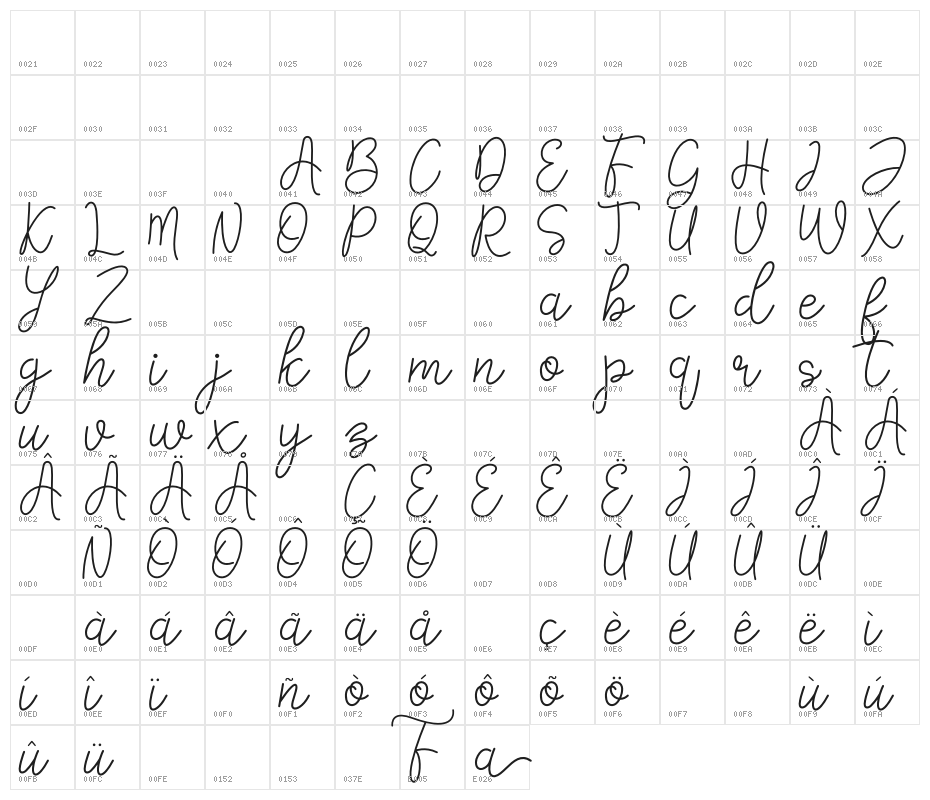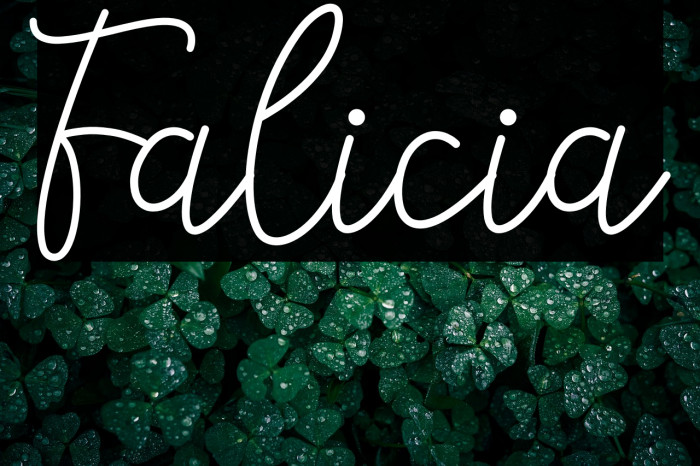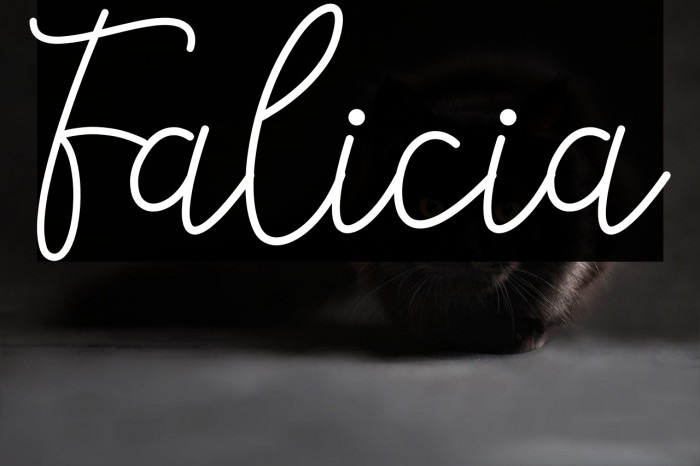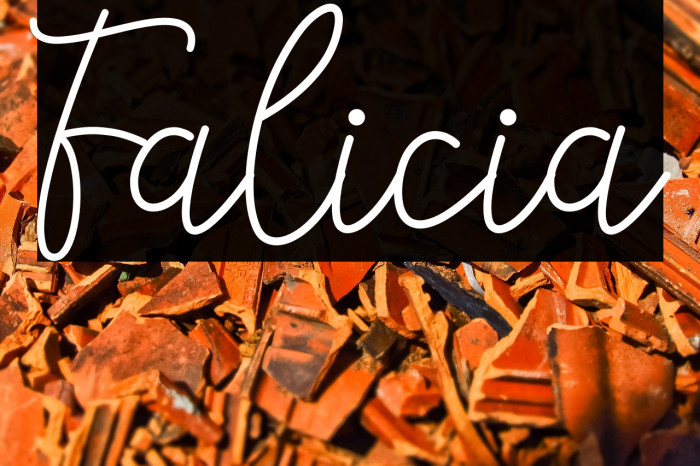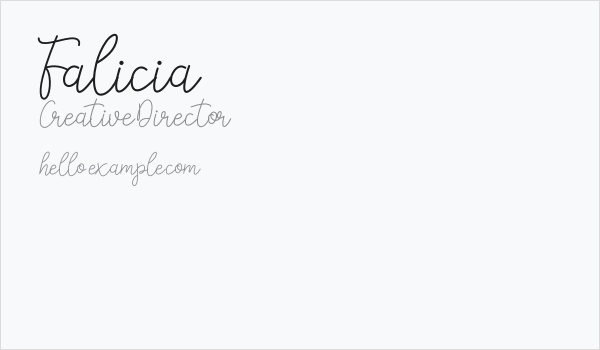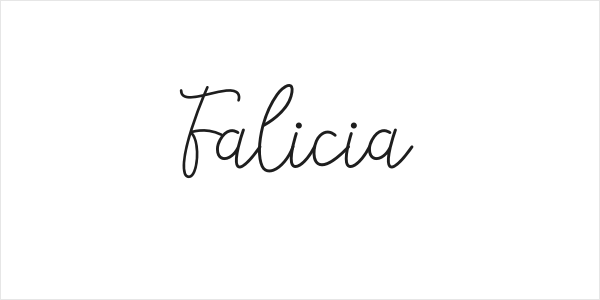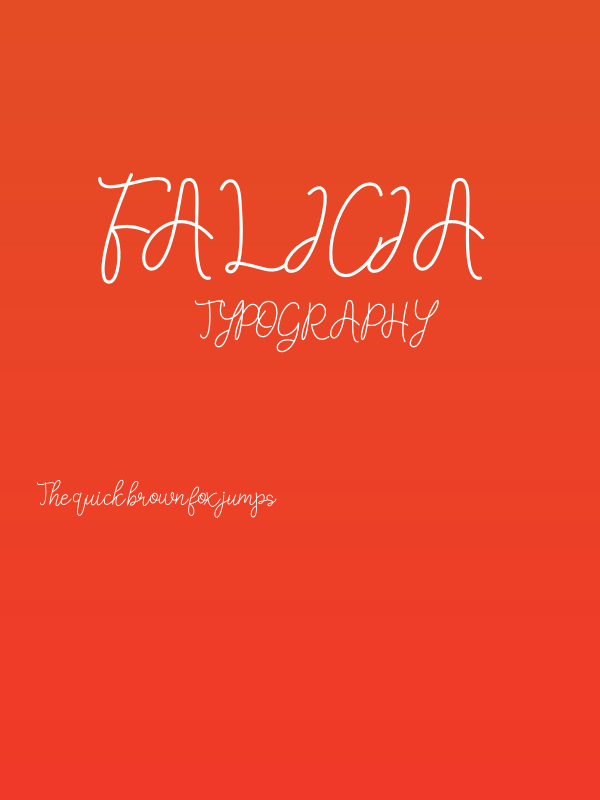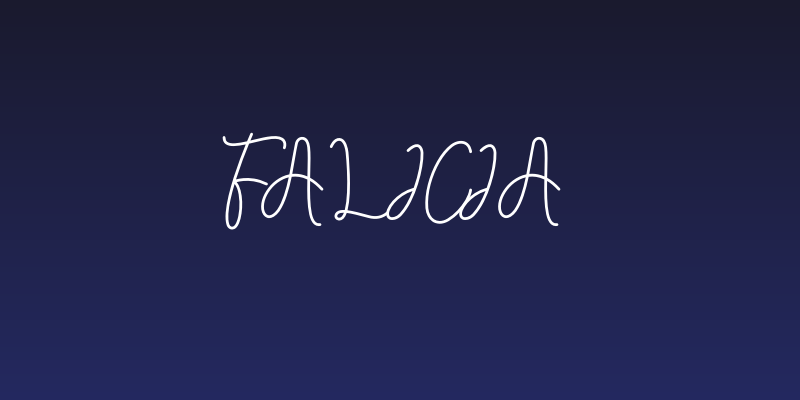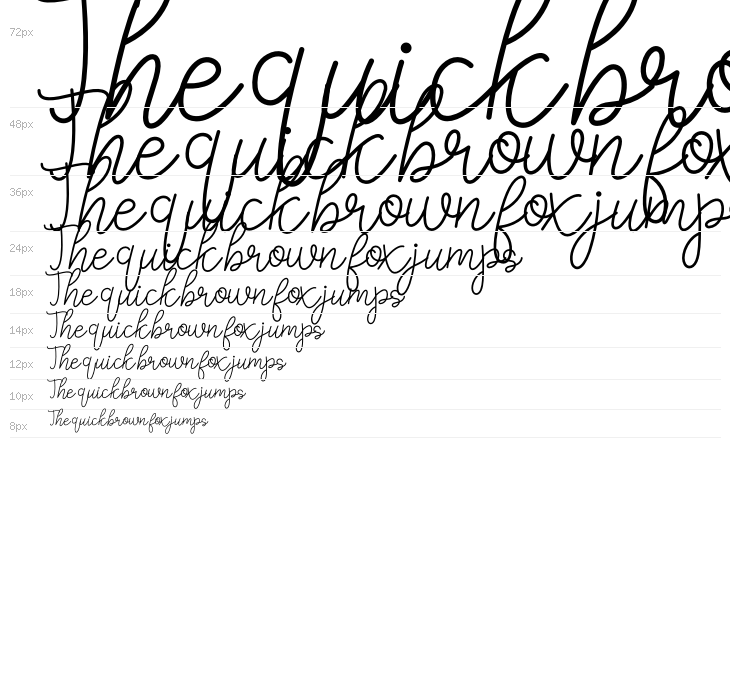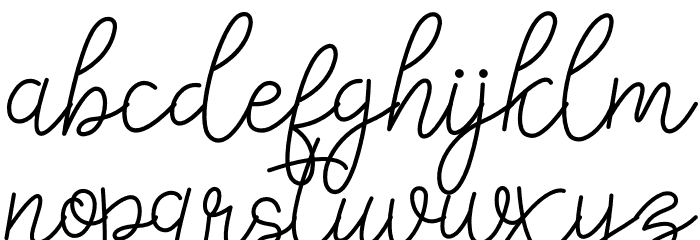
Falicia Font
This font exhibits a flowing, cursive style that mimics natural handwriting with a touch of elegance. The characters are connected, creating a seamless and fluid appearance. The uppercase letters maintain a consistent height, while the lowercase letters have a slight slant, enhancing the handwritten feel. The strokes are smooth and rounded, with a medium thickness that provides good readability without compromising the artistic flair. This font is ideal for projects that require a personal touch, such as invitations, greeting cards, or branding materials that aim to convey warmth and sophistication.
A flowing, cursive font with a natural handwritten style.
• Proposed Projects: Ideal for wedding invitations, personal branding, greeting cards, and elegant stationery.
• Category: Script
• Overall Style: Elegant, Handwritten
• Use Case: Invitations, Personal branding, Greeting cards